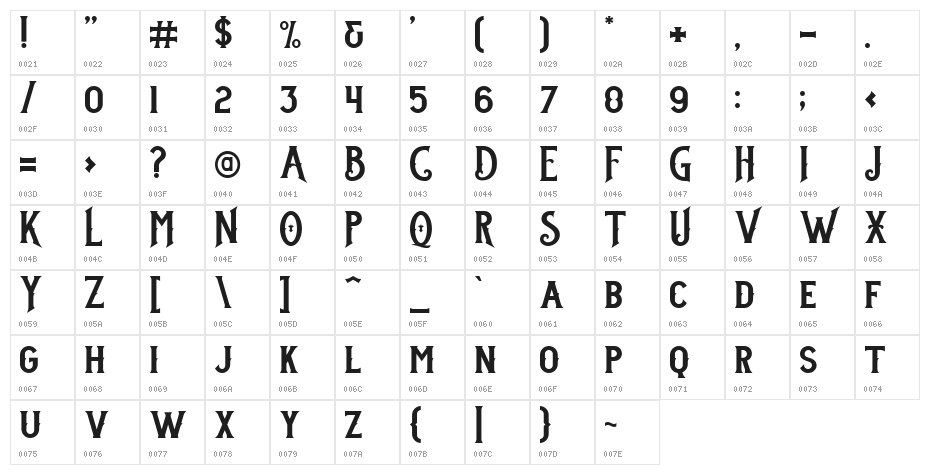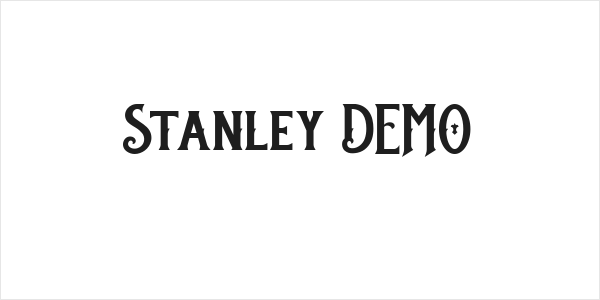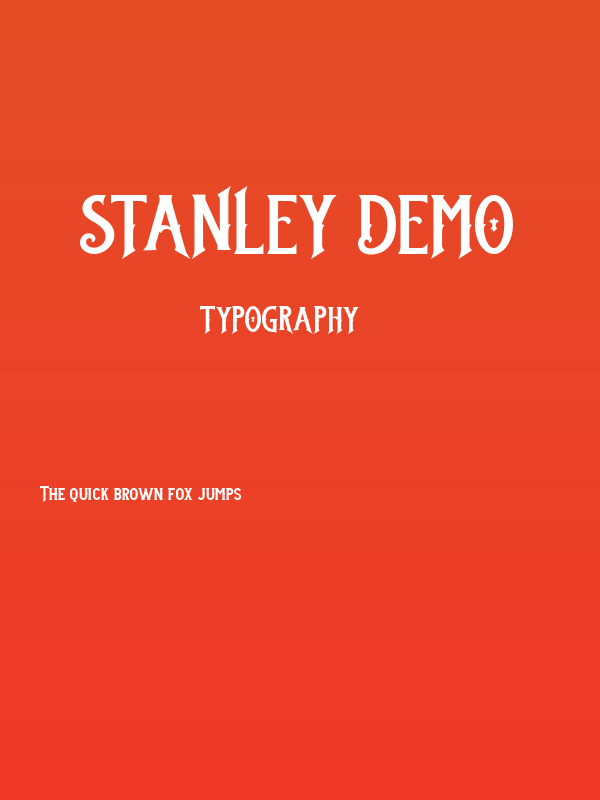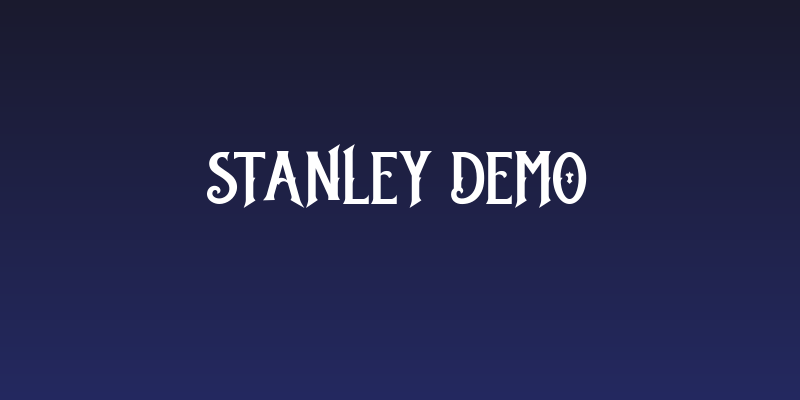
Stanley DEMO Font
Stanley DEMO Description
This font features a bold and decorative style with a distinct vintage flair. The uppercase letters are characterized by unique embellishments, such as curls and pointed serifs, giving it a dramatic and eye-catching appearance. The lowercase letters maintain a consistent style, complementing the uppercase with similar ornate details. The numbers are bold and maintain the decorative theme, making them stand out. Special characters are also designed with the same attention to detail, ensuring a cohesive look across all glyphs. This font's intricate design elements make it suitable for projects that require a touch of elegance and historical charm.
| Proposed Projects | Ideal for vintage-themed posters, branding, book covers, and event invitations. |